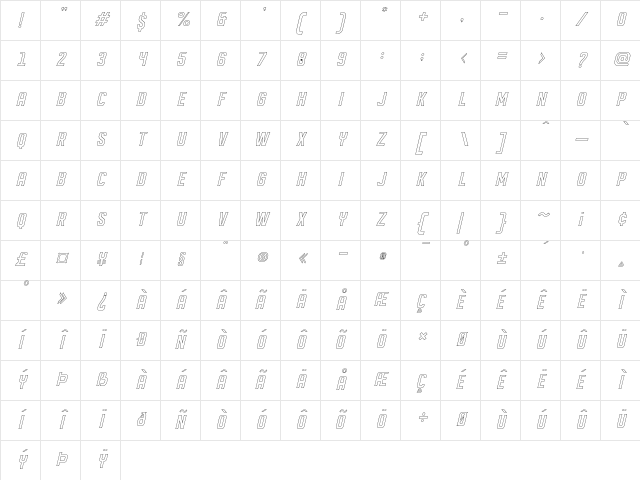
DISPLAYEDObliqueoutline Font Preview
DISPLAYEDObliqueoutline Obliqueoutline
DISPLAYEDObliqueoutline Font Details
Design Context for DISPLAYEDObliqueoutline Typeface
DISPLAYEDObliqueoutline brings ornamental detail and strong personality to headlines and identities, where visual impact matters more than quiet functionality. The dynamic lean of this cut emphasises speed and emphasis in any layout.
Font Pairing: Pair with a clean neutral sans-serif for body copy to let DISPLAYEDObliqueoutline's character lead without overwhelming the composition.
Pro Tip: Use DISPLAYEDObliqueoutline exclusively at display sizes — it was designed to be seen, not read at length. Let a neutral companion handle body copy.